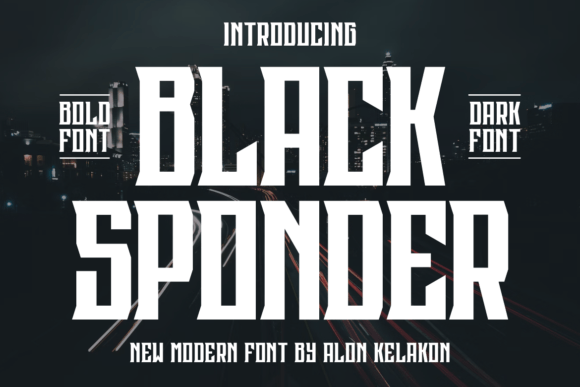
Embark on a typographic journey with Black Sponder, a serif font that exudes boldness and assertiveness. This font is not just a collection of letters; it's a gateway to a world of creative possibilities. Whether you're a designer crafting logos, a writer seeking a distinctive voice, or an entrepreneur building a brand, Black Sponder is your ultimate companion.
Dive into the depths of this font's personality and discover its ability to transform ordinary words into captivating statements. Its sharp edges and confident strokes demand attention, making it ideal for headlines, posters, and packaging designs that refuse to be ignored. Black Sponder is a master of versatility, adapting seamlessly to a range of projects, from elegant invitations to playful social media graphics.
Fuel your creativity with a font that speaks volumes. Black Sponder is not just a tool; it's an extension of your imagination. Unleash your inner artist and watch as your designs take on a life of their own. Make a statement, leave a lasting impression, and let Black Sponder be the voice of your vision. Embrace the power of typography and embark on a journey where every letter tells a story.
Unlock the potential of Black Sponder today and elevate your designs to new heights. Its bold presence will command attention, while its versatility will prove invaluable in your creative arsenal. Don't settle for ordinary fonts; embrace the extraordinary with Black Sponder. Join the ranks of those who dare to be different and let your designs shine with a font that refuses to blend in.